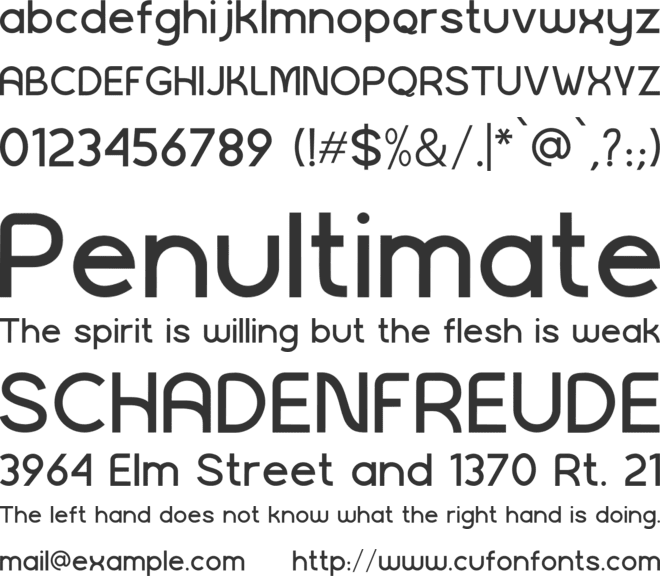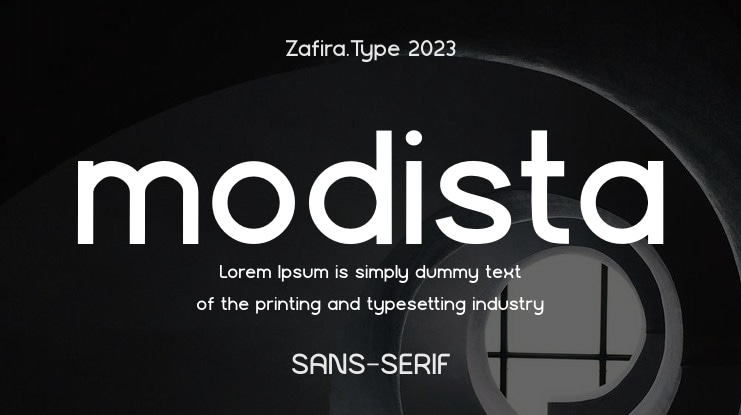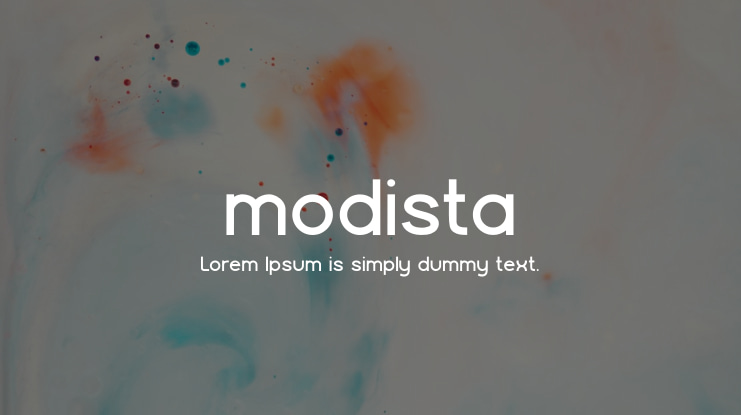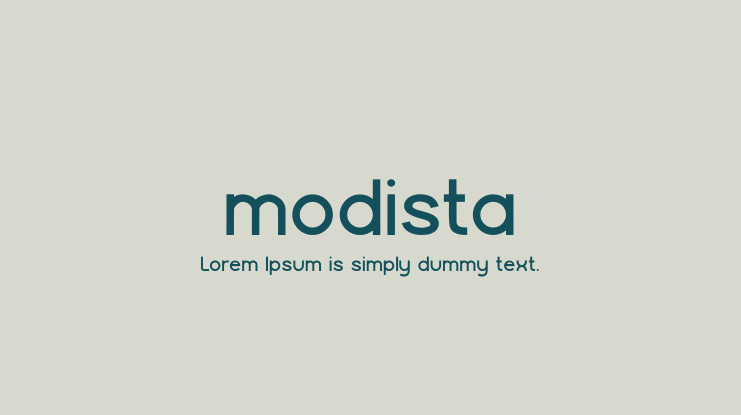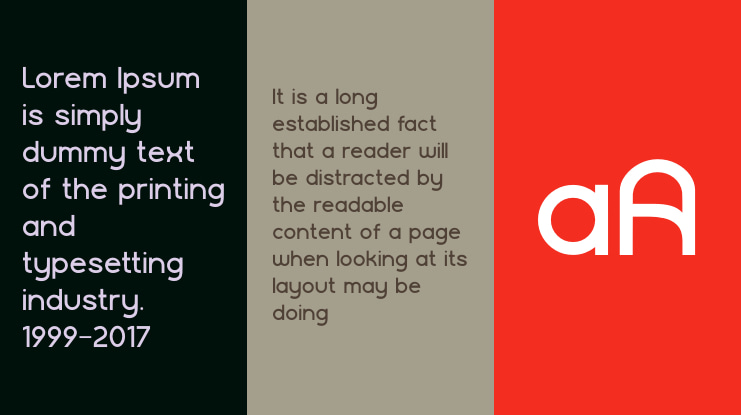
modista Font
Modista is a sans-serif font that is ideal for various design purposes. It is specifically suitable for branding projects, logos, wedding designs, social media posts, advertising, product packaging, product designs, labels, photography, invitations, stationery, and any project that requires excellent readability.